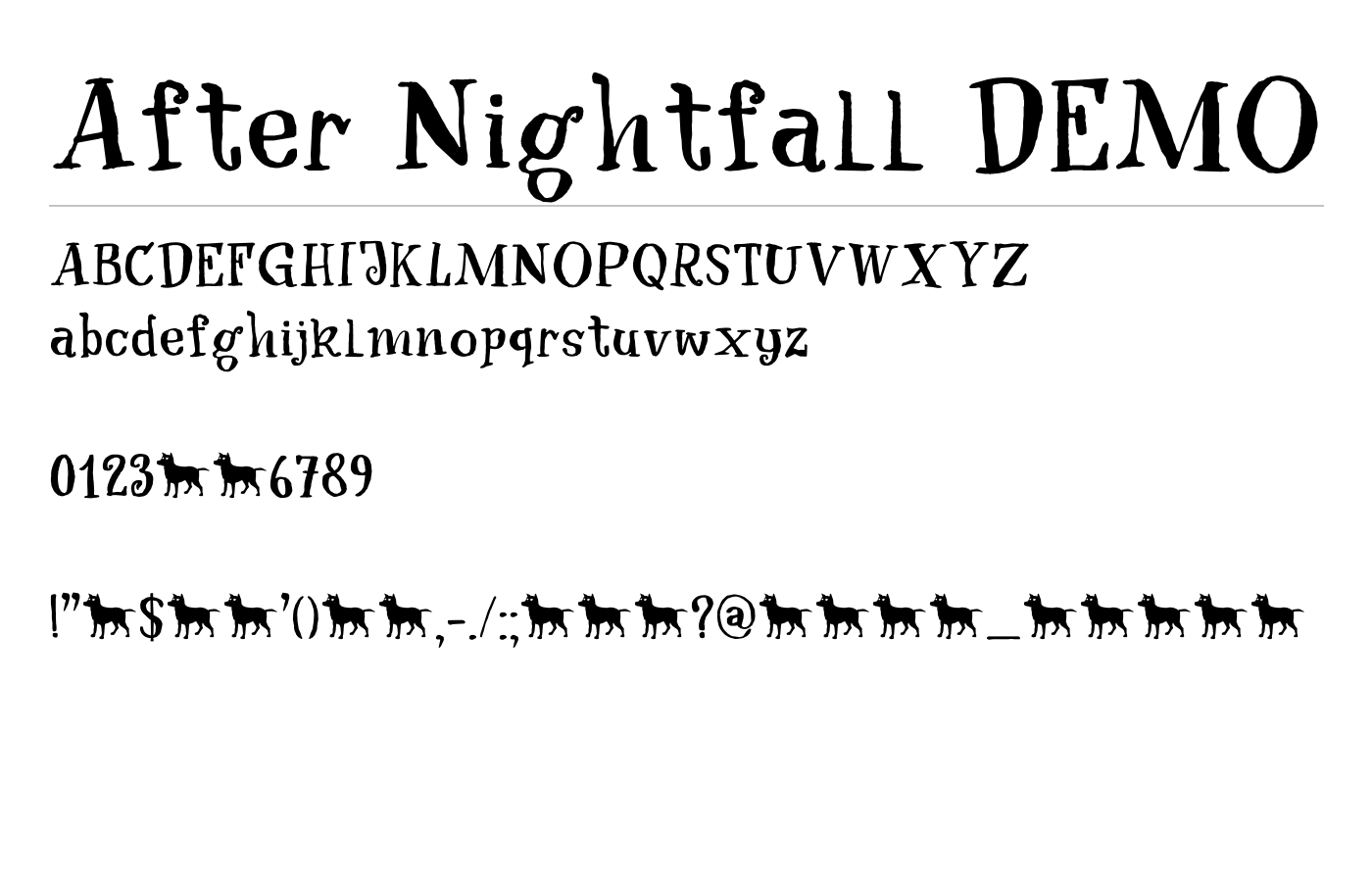
After Nightfall DEMO is a whimsical serif font with a hand-drawn feel, featuring irregular stroke widths and quirky letterforms that give it a playful yet slightly eerie personality. Its medium weight, moderate x-height, and uneven serifs work well for creative projects seeking a vintage or storybook atmosphere. Ideal for posters, invitations, and branding that want to evoke mystery and charm with a touch of rustic character.
After Nightfall DEMO Font
About After Nightfall DEMO Font